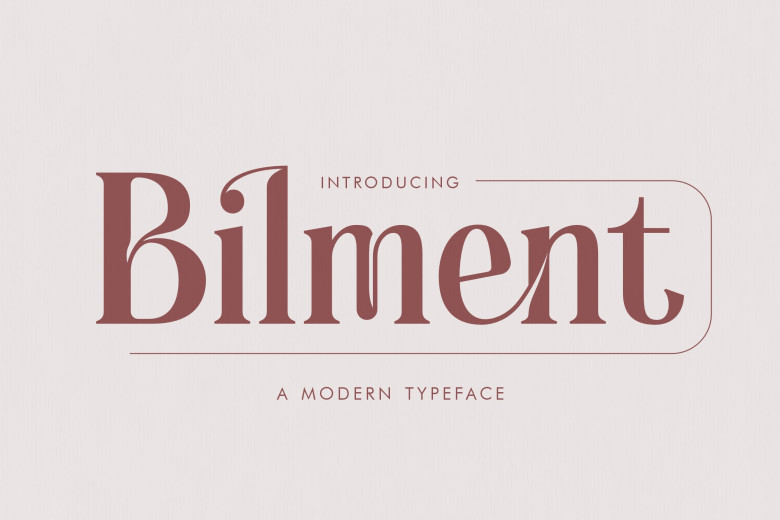
Bilment Font
Bilment is a unique style of modern and classic serif font. It is perfect for your requirement for a modern-looking luxurious design. This type is good to use as an elegant logo, fashion brand, magazine, blog, post, and so much more.
Bilment Serif Font